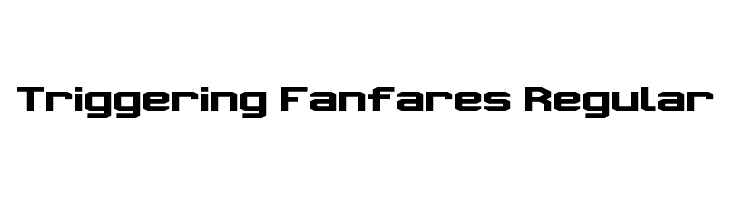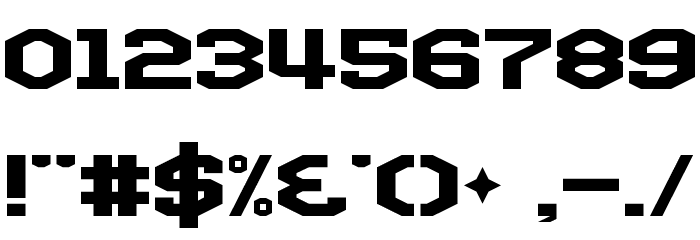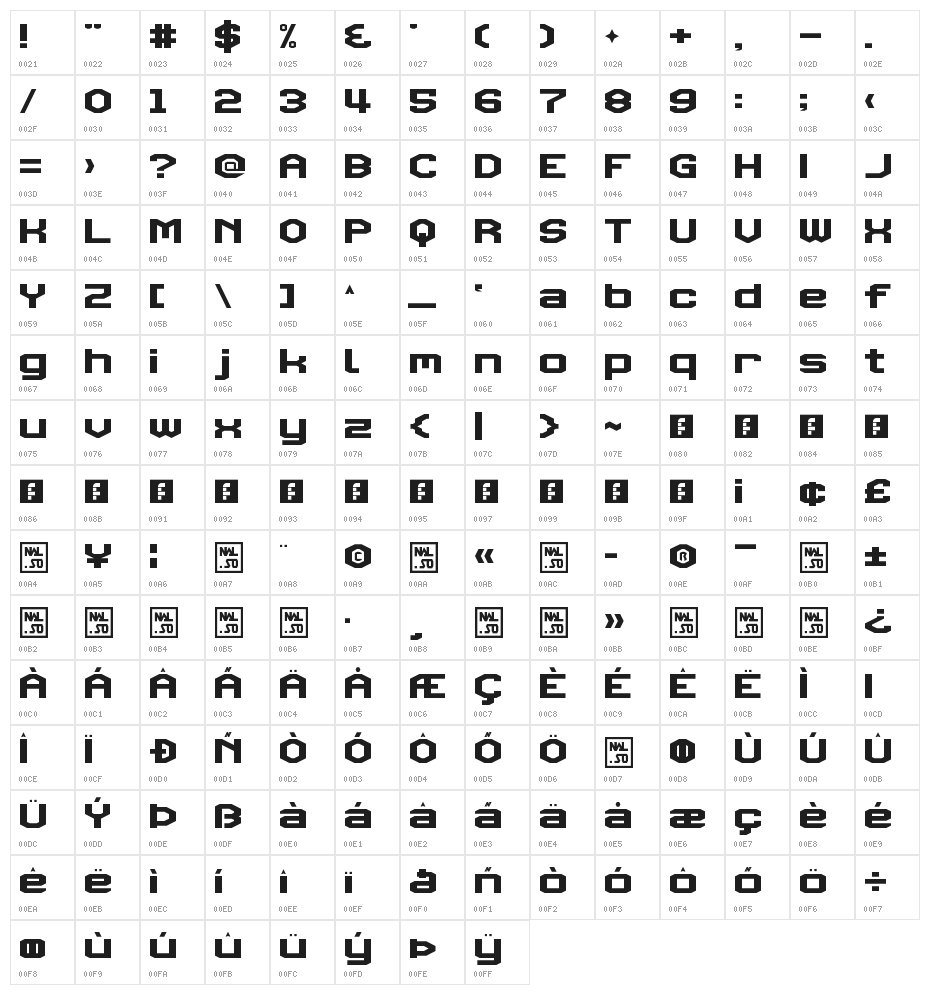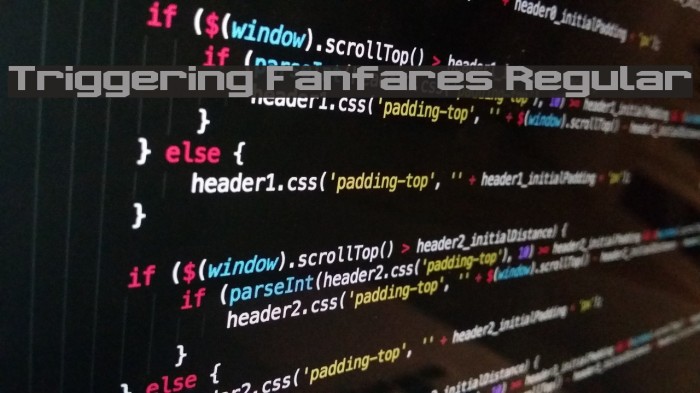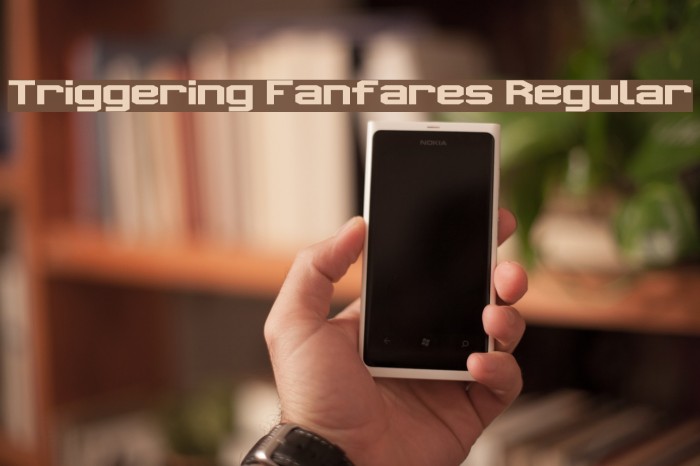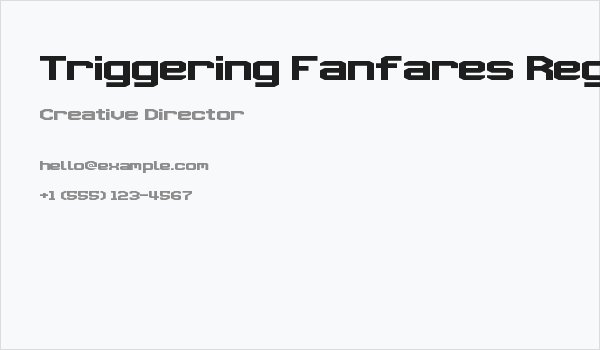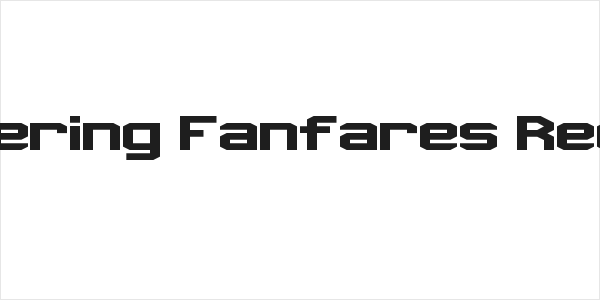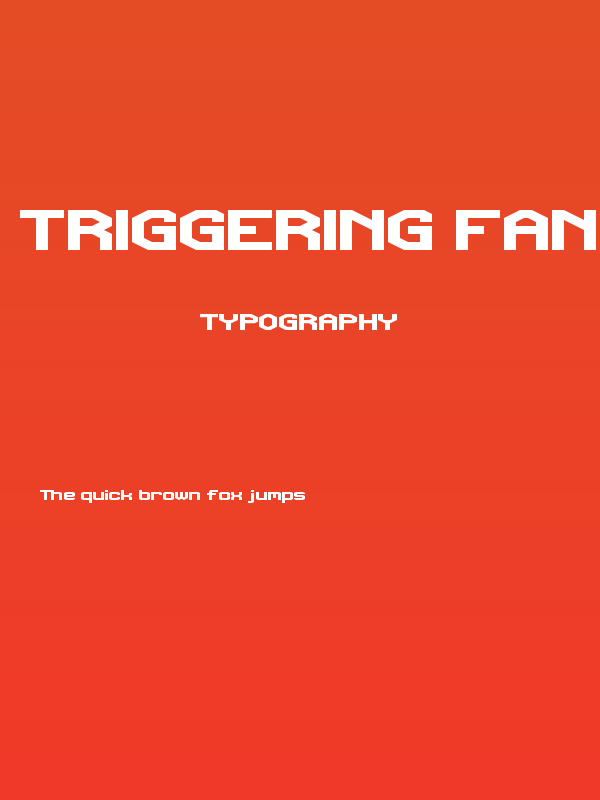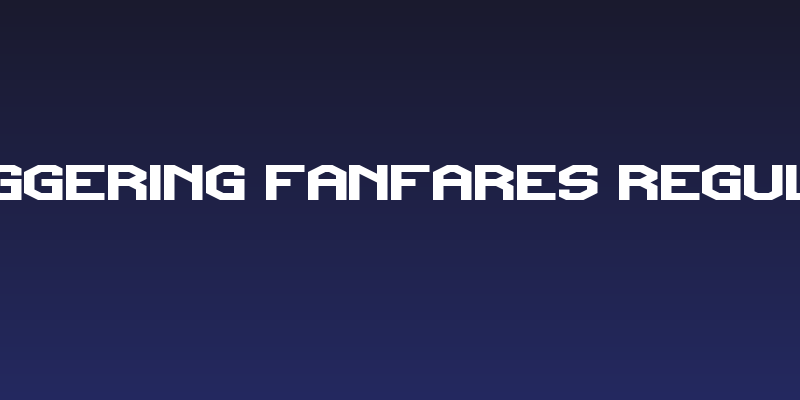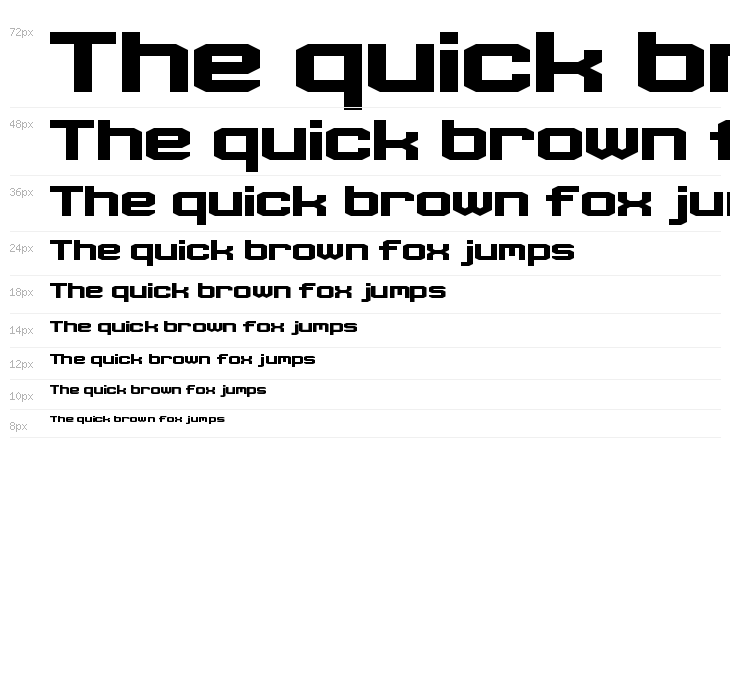
Triggering Fanfares Regular Font
Triggering Fanfares Regular Description
This font features a bold, geometric design with a distinctly modern and futuristic aesthetic. The characters are constructed with sharp angles and straight lines, giving them a blocky appearance that is both striking and highly legible. The uppercase and lowercase letters maintain a consistent style, with uniform stroke widths that contribute to a cohesive look. The numerals and special characters are designed to match the angular theme, ensuring a seamless integration across all text elements. This font's unique style makes it ideal for projects that require a strong visual impact.